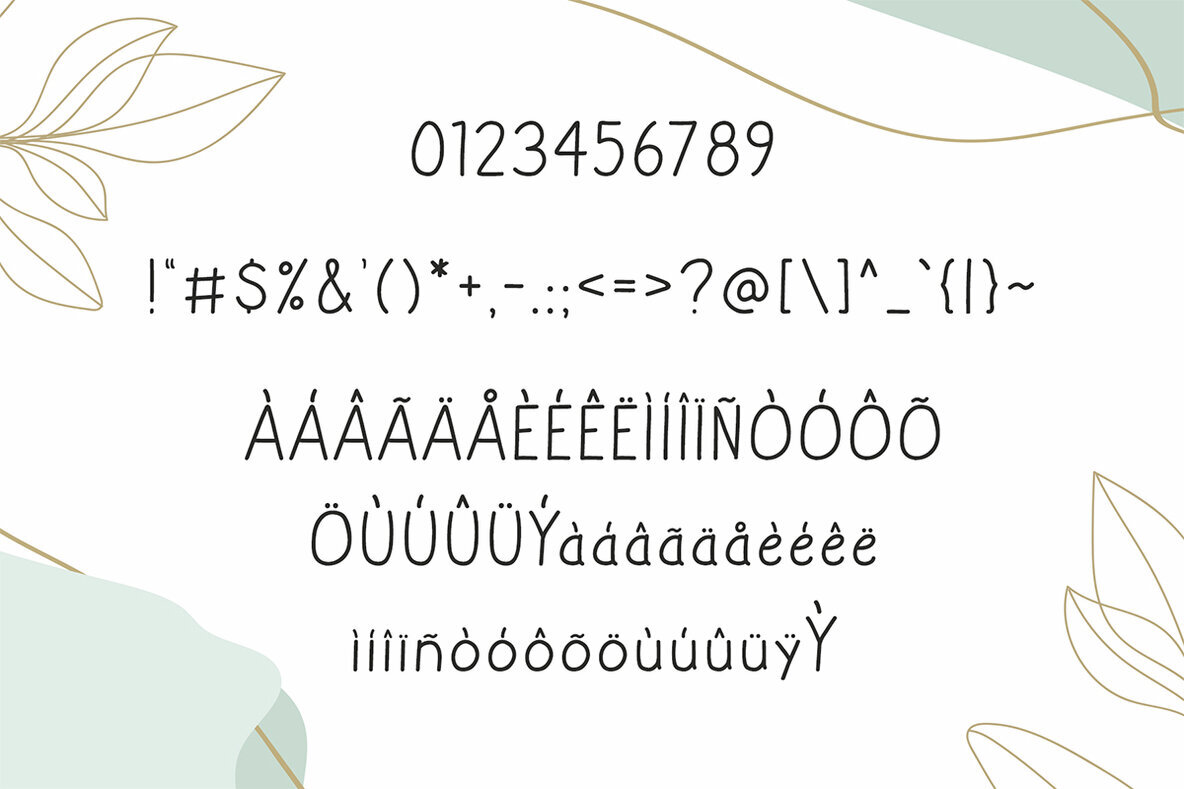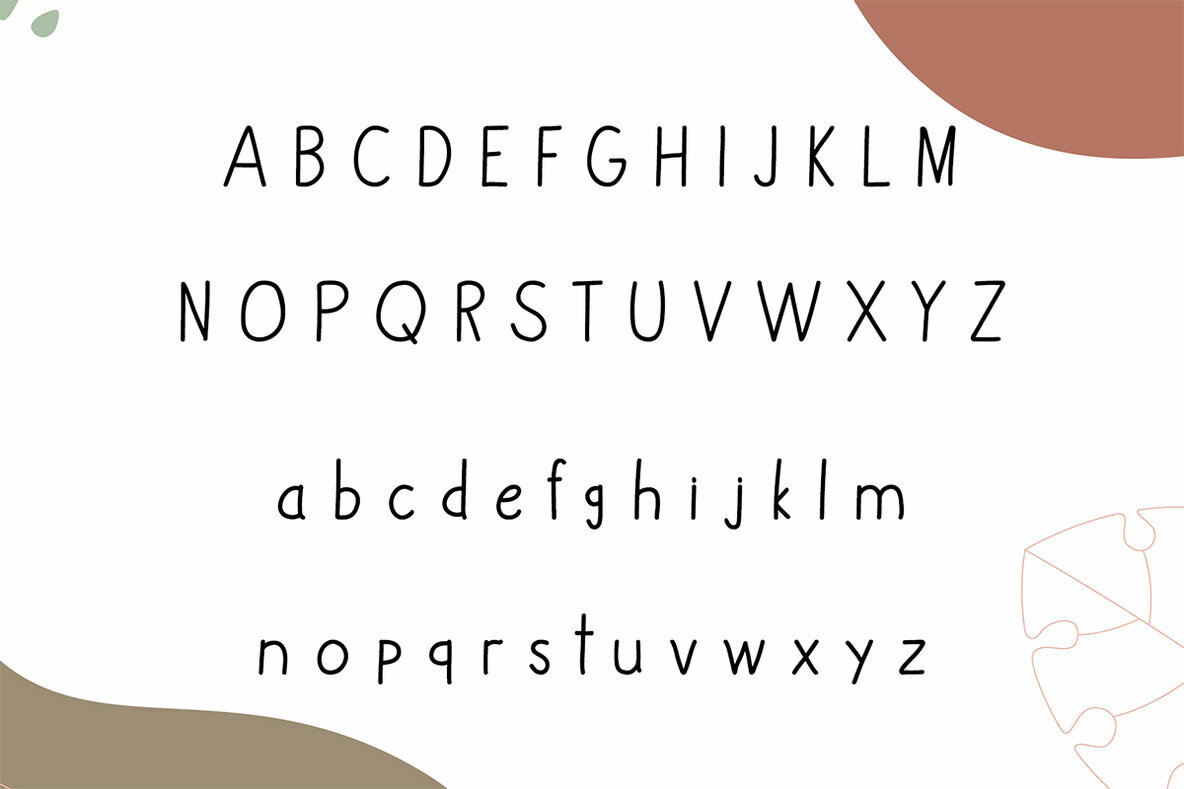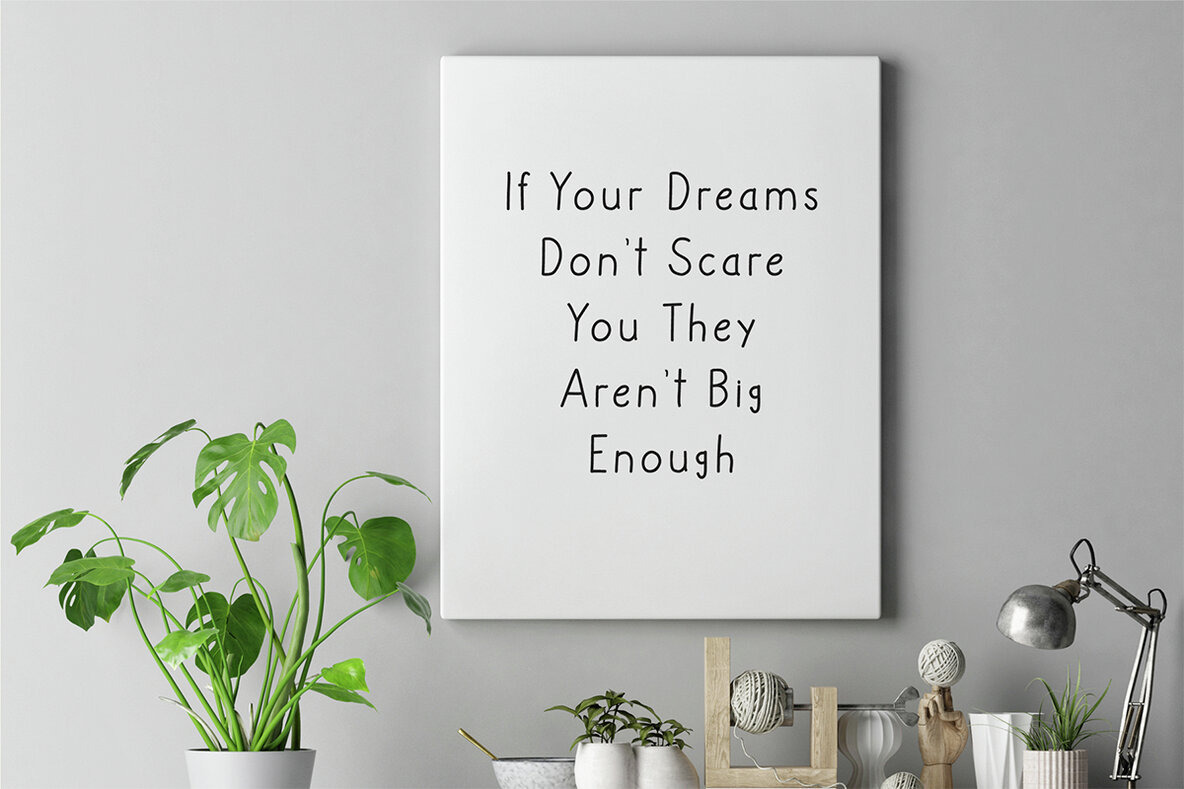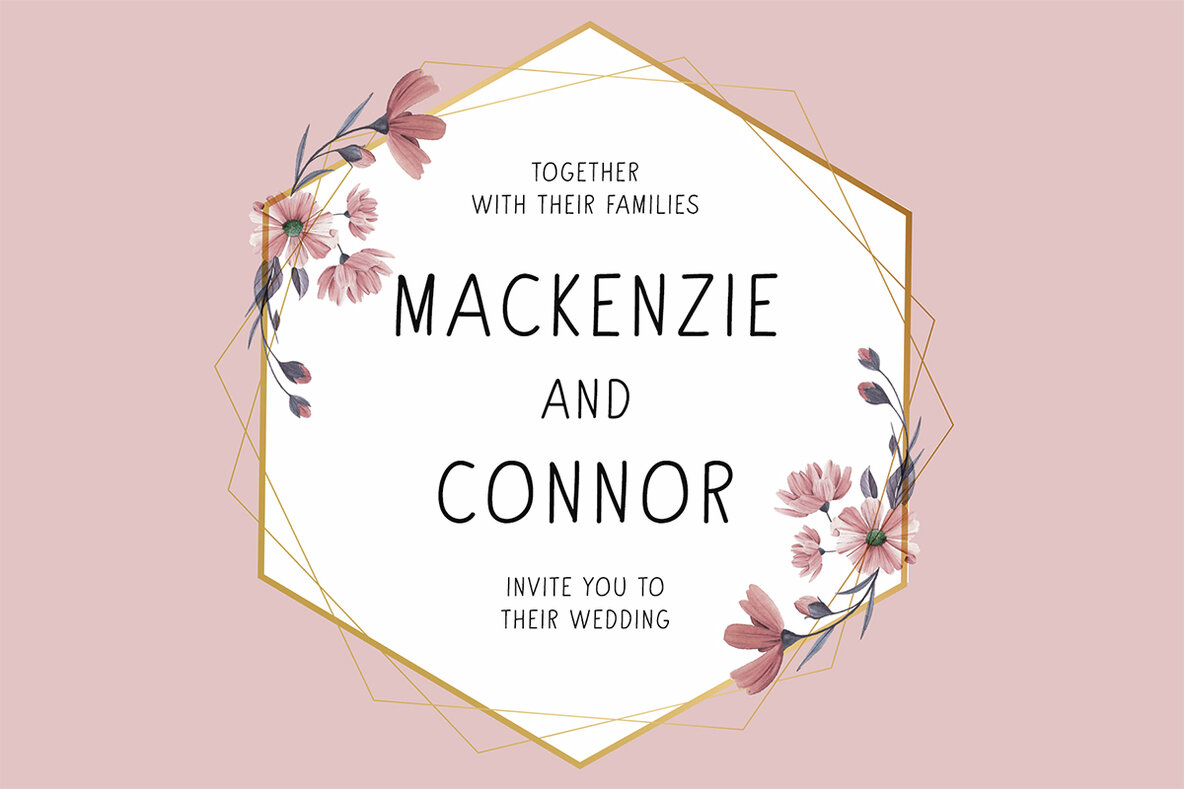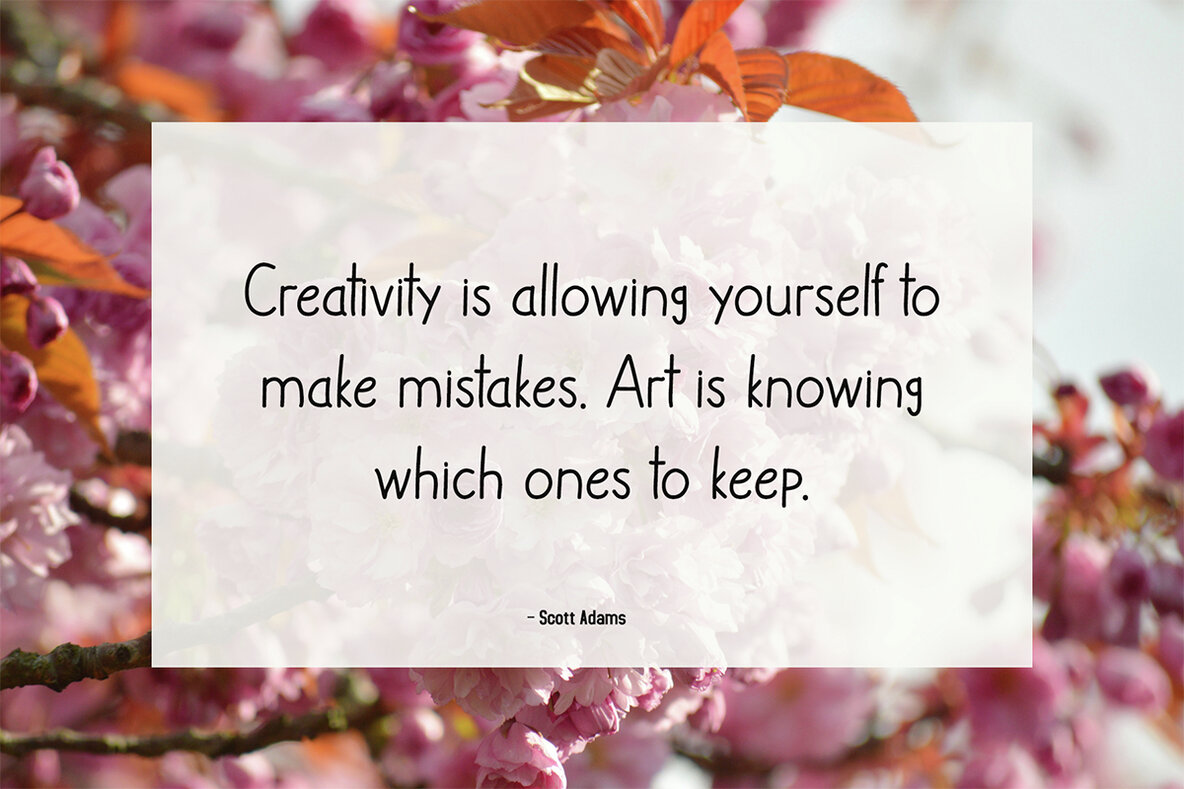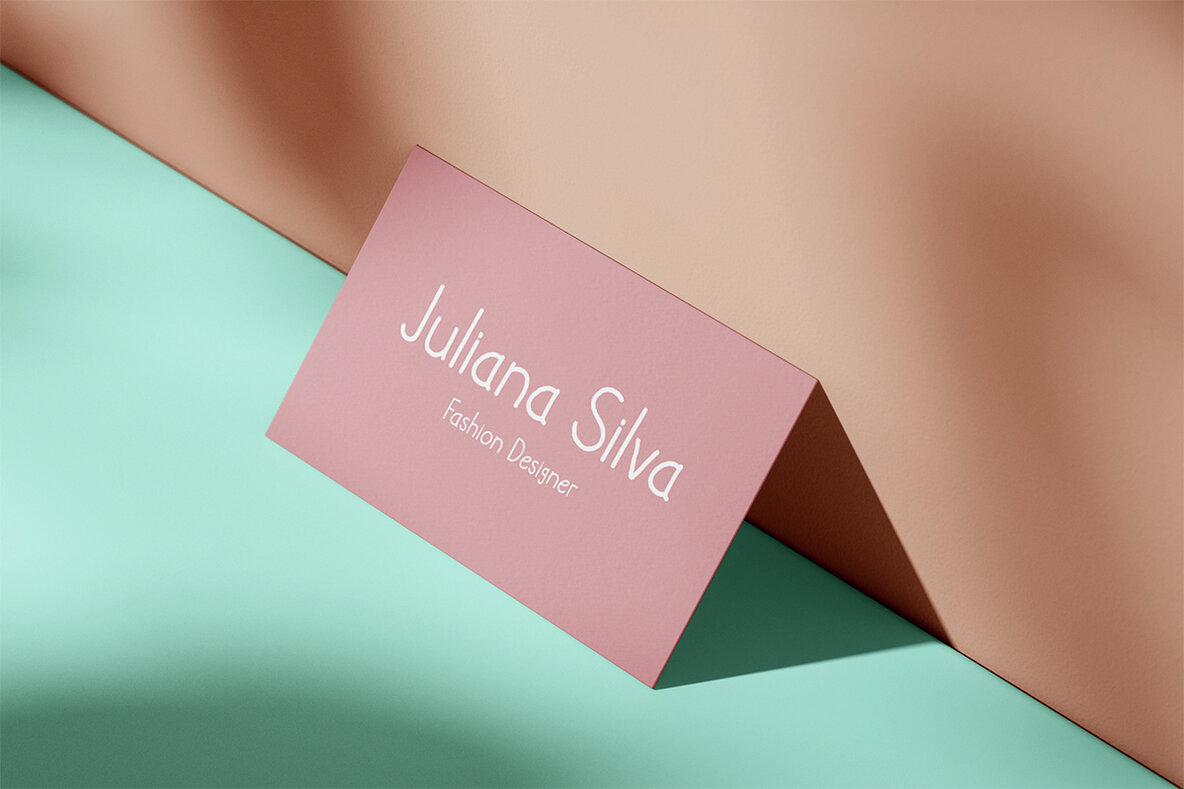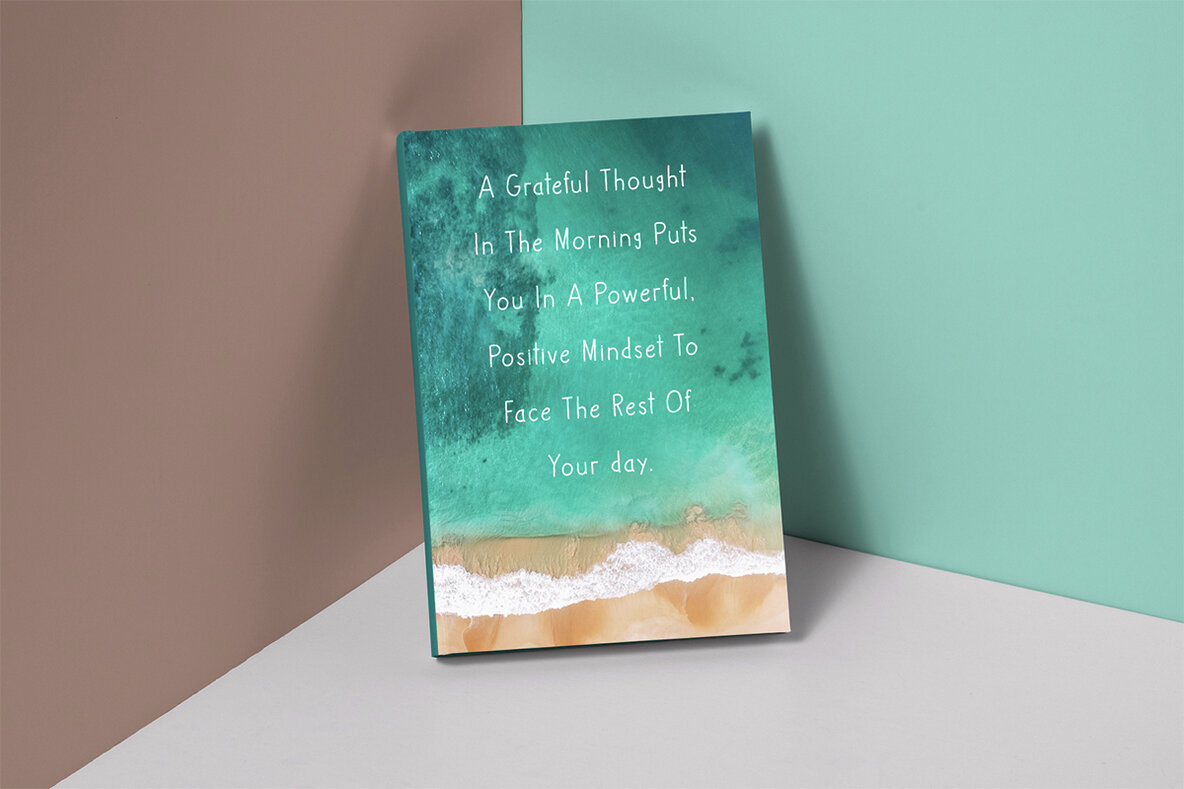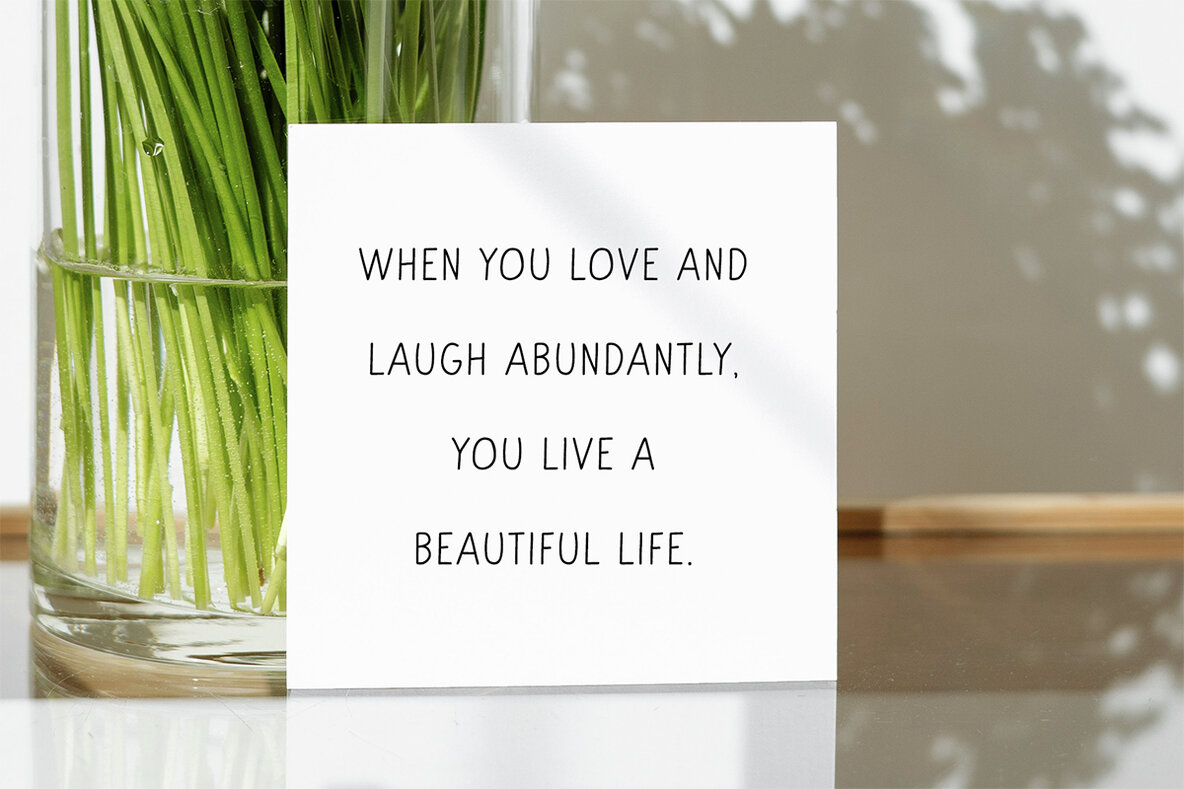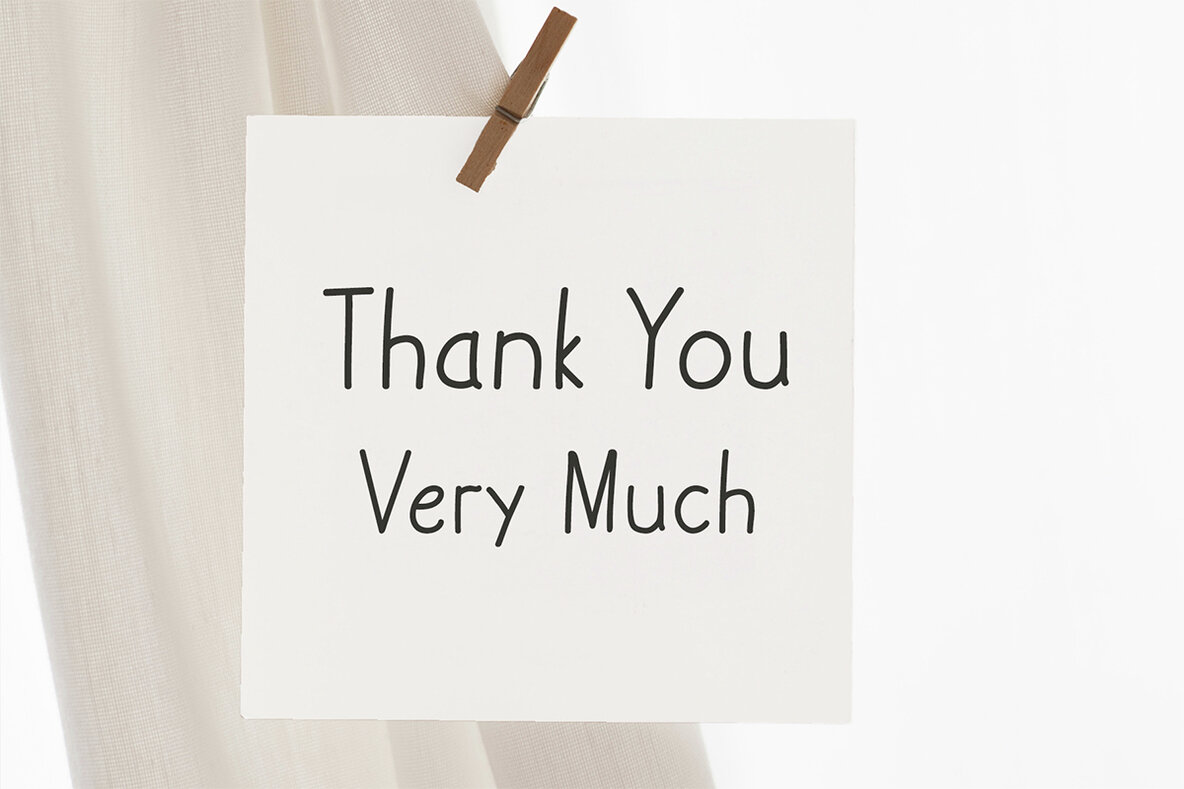
Aaima Font
Aaima Regular
Aaima Handwritten Font exudes natural beauty and elegance, making it perfect for transforming any creative idea into stunning artwork. Featuring a handcrafted flow, this font includes a comprehensive set of uppercase and lowercase letters, numbers, punctuation, and symbols, all with multilingual support. Ideal for a variety of creative projects, Aaima can enhance packaging, presentations, logos, headlines, lettering, posters, branding, quotes, titles, magazines, web layouts, advertising, invitations, book designs, and more.
With its extensive character set, including complete alphabets and a variety of special characters, Aaima offers versatility for any creative task. This font supports multiple languages, ensuring global usability. Whether you’re designing eye-catching headlines or crafting beautiful invitations, Aaima Handwritten Font provides the elegance and functionality needed to bring your projects to life.